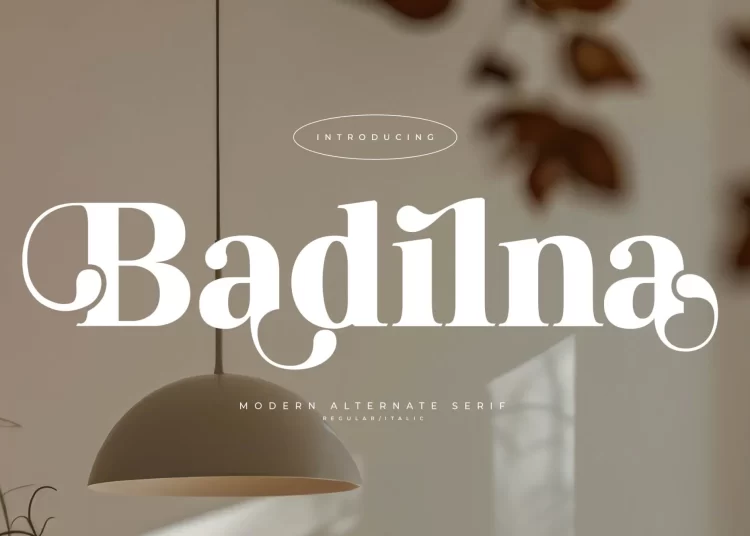
Badilna Font
Badilna is a modern alternate serif font from Letterena that brings elegance and sophistication to a wide range of projects. Whether you’re designing logos, working on branding projects, creating homeware designs, or crafting product packaging, Badilna provides a refined touch. It’s also perfect for adding stylish quotes to mugs, posters, and shopping bags, enhancing their appeal with a design that embodies the good life.
For fashion items like t-shirts, Badilna offers luxurious serif style handwriting, making each piece stand out with a chic and polished look. This versatile font also graces book covers, where it is often used in conjunction with other high-end fonts to create a stunning visual impact.